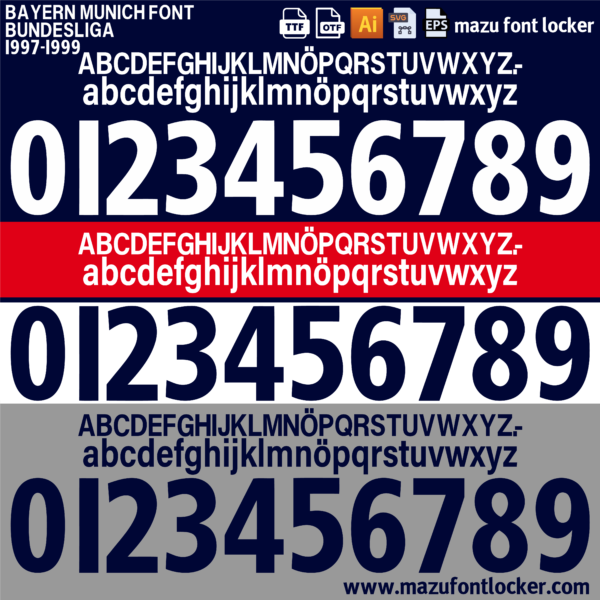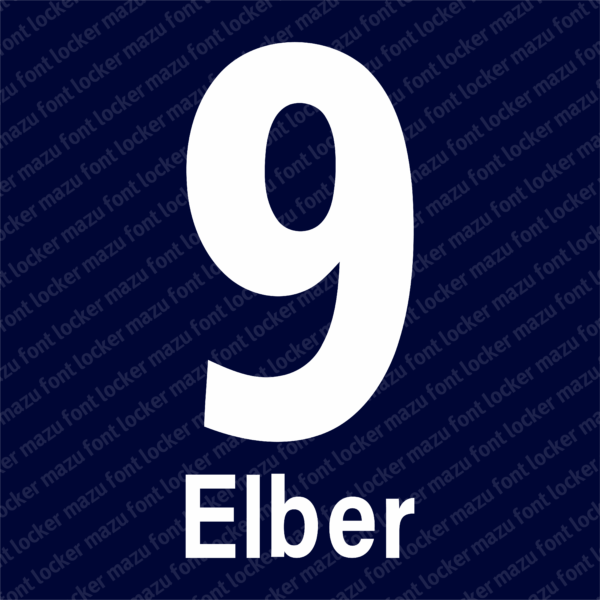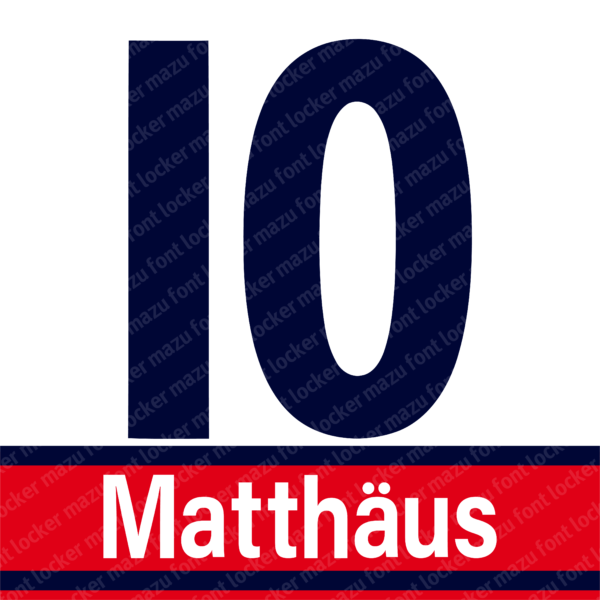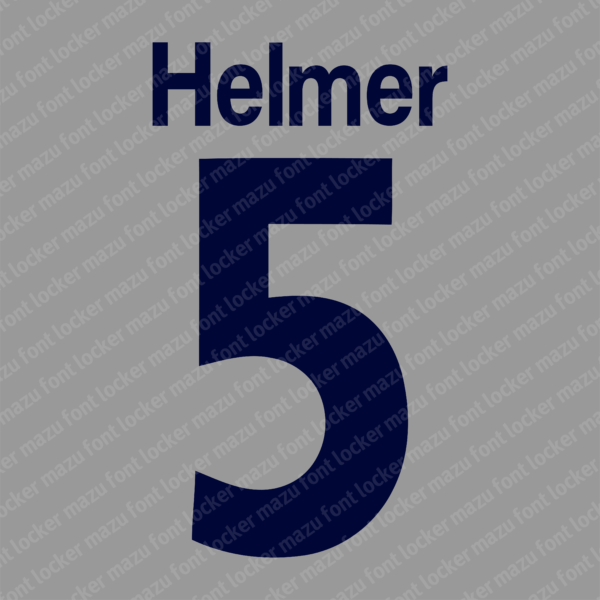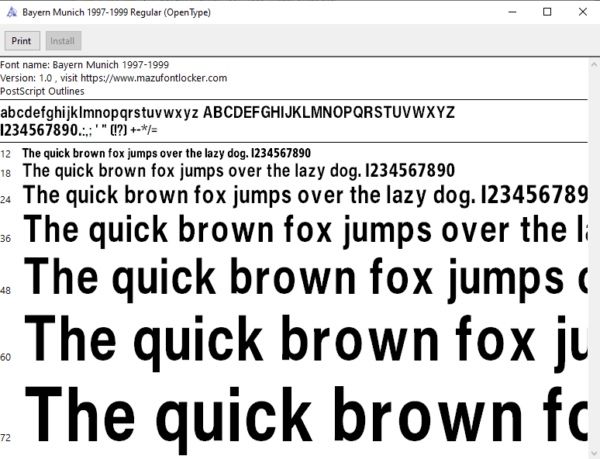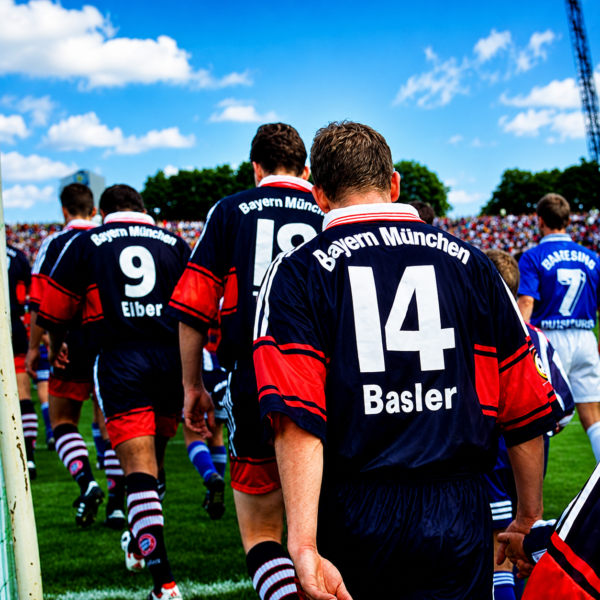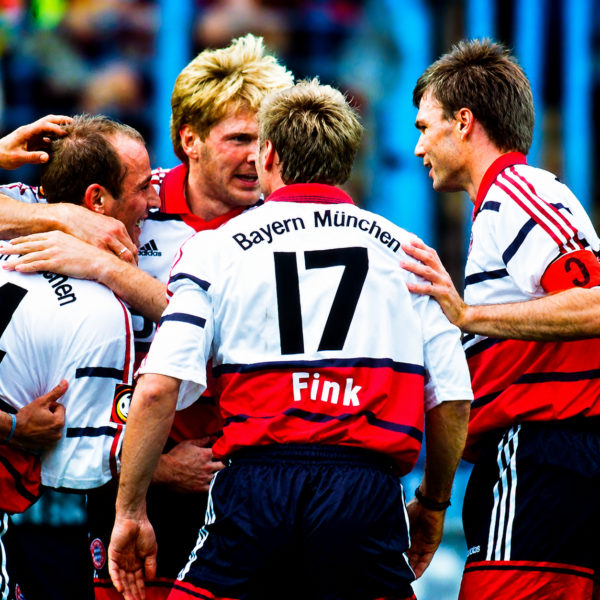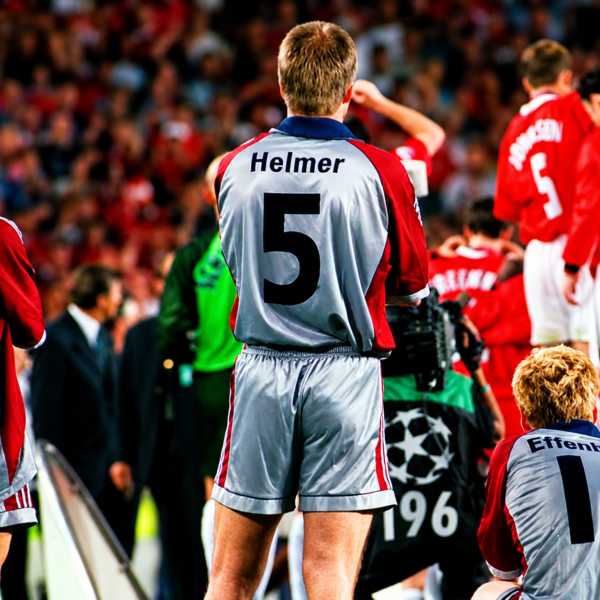
Bayern Munich 1997-1999 Font Vector – Epic Bavarian Legend
Download Bayern Munich 1997-1999 Font and relive the golden era of German football excellence. This meticulously crafted typeface captures the bold spirit and triumphant energy of the legendary squad that dominated European competitions. Every curve and stroke reflects the power and precision that defined those unforgettable seasons.
Whether you’re designing matchday posters, creating fan merchandise, building club websites, or crafting nostalgic social media content, Bayern Munich 1997-1999 Font delivers authentic vintage character with modern versatility. The strong, commanding letterforms embody the confidence of champions, making your designs stand out with unmistakable authority and heritage.
Perfect for graphic designers, football enthusiasts, and branding projects, Bayern Munich 1997-1999 Font brings history to life with professional quality and razor-sharp details. Elevate your creative work instantly with this exclusive retro football font that combines classic elegance and raw power.
Bayern Munich 1997-1999 Font Vector
🔥 Bayern Munich 1997-1999 Font Features
- Authentic 1997-1999 Bayern Munich jersey lettering style
The authentic lettering style helps recreate the classic look of the Bayern Munich 1997-1999 kit with professional accuracy.
Unlike generic jersey fonts, this premium set is engineered with uncompromising focus on absolute authenticity and razor-sharp accuracy. Every detail has been meticulously recreated based on the original match lettering style used by Bayern Munich during their dominant 1997-1999 era, empowering designers and collectors to create ultra-realistic football shirt designs that powerfully capture the legendary spirit and championship glory of that historic period.
This Bayern Munich 1997-1999 font vector set is designed for authentic football jersey customization and works perfectly for retro football projects, collector designs, and professional sportswear artwork.